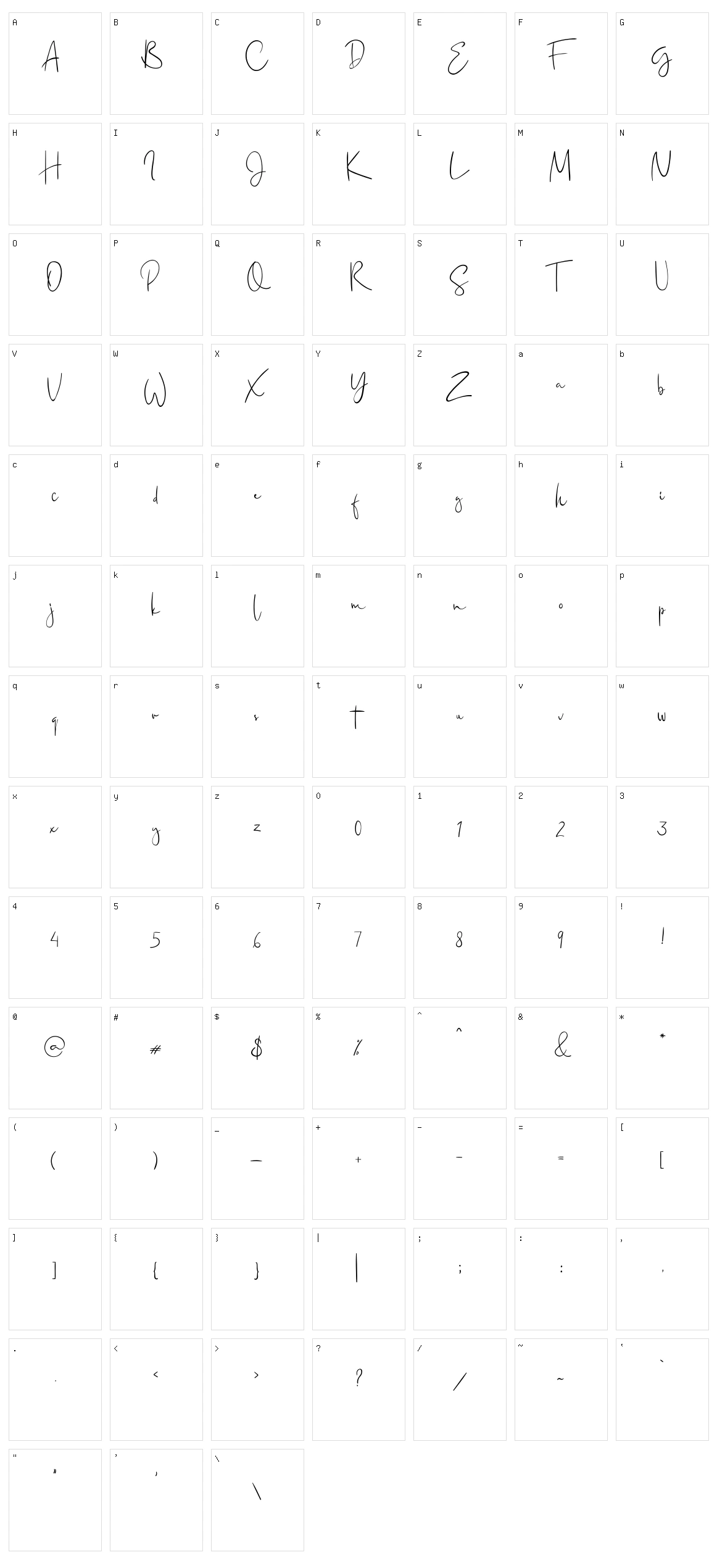
The free font Jaceline is carefully designed by Magang Letterhend, showcasing a thoughtful balance of creativity and usability and falls under the Script font style. When you download the ZIP file, it contains only 24.84 KB of font files, making it lightweight and quick to download. Please review the license details below to understand permitted usage and distribution rights. If license information is not available, we recommend using this font for personal projects only or contacting the author directly for commercial usage permissions.